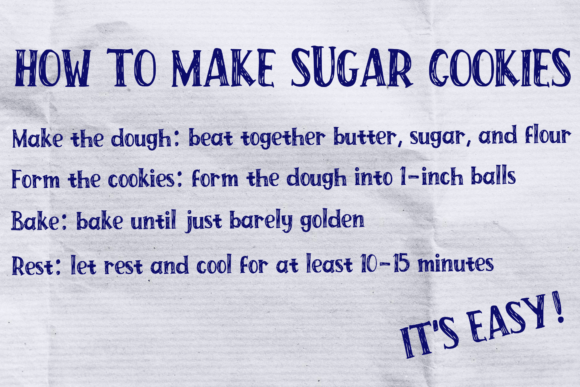
Cartoon Newspaper Font: Elevate Your Designs with a Playful Comical Touch
Are you looking for a font that can add a fun and playful touch to your designs? Look no further than the Cartoon Newspaper Font. This comical pen font is inspired by vintage comic and cartoons, as well as vintage lettering, making it the perfect choice for a wide range of design projects.
What is Cartoon Newspaper Font?
Cartoon Newspaper Font is a unique and creative font that is designed to bring a smile to your face. Its playful and comical style is reminiscent of classic cartoons and comics, making it perfect for designs that require a fun and lighthearted touch. The font is inspired by vintage lettering and has a distinctive, hand-drawn feel that sets it apart from more traditional fonts.
Features of Cartoon Newspaper Font
Cartoon Newspaper Font has a number of features that make it an excellent choice for designers. Some of its key features include:
- Playful and comical style: The font has a fun and lighthearted feel that is perfect for designs that require a playful touch.
- Inspired by vintage comic and cartoons: The font’s design is inspired by classic cartoons and comics, giving it a unique and nostalgic feel.
- Hand-drawn feel: The font has a distinctive, hand-drawn feel that sets it apart from more traditional fonts.
- Versatile: The font can be used for a wide range of design projects, from stickers and t-shirt designs to logo designs and magazine covers.
Uses for Cartoon Newspaper Font
Cartoon Newspaper Font is a versatile font that can be used for a wide range of design projects. Some of the many uses for this font include:
- Stickers: The font’s playful and comical style makes it perfect for stickers and other fun designs.
- T-shirt designs: The font’s bold and eye-catching style makes it perfect for t-shirt designs and other apparel.
- Logo designs: The font’s unique and creative style makes it perfect for logo designs and branding projects.
- Magazine or book covers: The font’s bold and attention-grabbing style makes it perfect for magazine or book covers.
- Comics and cartoon drawings: The font’s inspiration from vintage comic and cartoons makes it perfect for comics and cartoon drawings.
Benefits of Using Cartoon Newspaper Font
There are many benefits to using Cartoon Newspaper Font in your designs. Some of the key benefits include:
- Adds a playful touch: The font’s playful and comical style can add a fun and lighthearted touch to your designs.
- Stand out from the crowd: The font’s unique and creative style can help your designs stand out from the crowd.
- Easy to read: The font’s bold and clear style makes it easy to read, even at small sizes.
- Versatile: The font can be used for a wide range of design projects, making it a great addition to any designer’s toolkit.
Tips for Using Cartoon Newspaper Font
Here are a few tips for using Cartoon Newspaper Font in your designs:
- Use it sparingly: While the font is playful and fun, it can be overwhelming if used too much. Use it sparingly to add a touch of whimsy to your designs.
- Pair it with other fonts: The font pairs well with other fonts, such as sans-serif fonts. Experiment with different pairings to find the one that works best for your design.
- Experiment with colors: The font looks great in a variety of colors. Experiment with different colors to find the one that works best for your design.
Cartoon Newspaper Font is a fun and playful comical pen font that is inspired by vintage comic and cartoons, as well as vintage lettering. Its unique and creative style makes it perfect for a wide range of design projects, from stickers and t-shirt designs to logo designs and magazine covers. With its bold and eye-catching style, Cartoon Newspaper Font is sure to add a super cool touch to your designs.